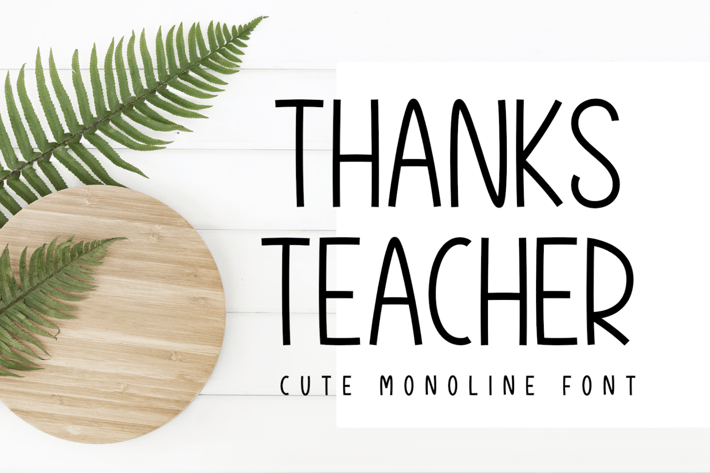
Thanks Teacher - Monoline Font
Thanks Teacher is a cheerful and approachable sans serif monoline font with a neat and consistent line weight. Designed to convey clarity and friendliness, it’s perfect for educational projects, kids' materials, branding, and playful packaging.
Its rounded shapes and simplicity create a welcoming tone for both print and digital designs.
Key Features:
- Clean monoline sans serif style
- Great for education and branding
- Friendly and modern character
- Readable and versatile look